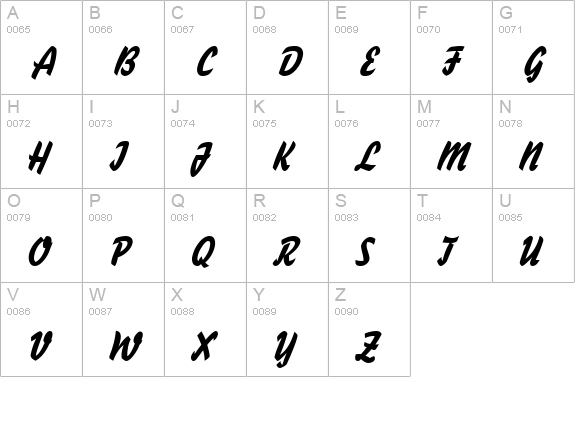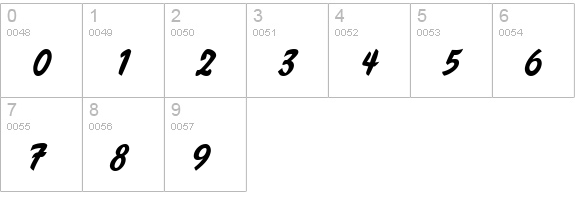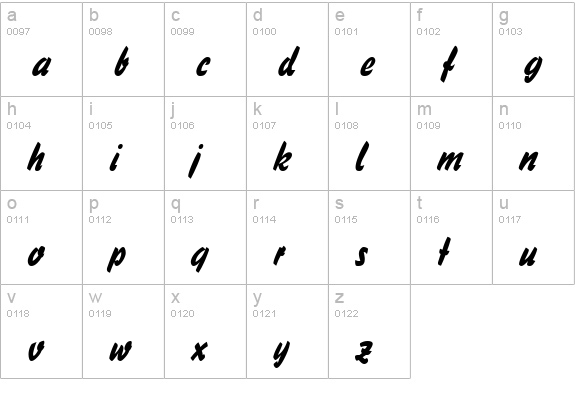
Handybrush Italic Font Details
Handybrush Italic is a distinctive, italic variant in the Handybrush typeface family \xE2\x80\x94 well suited to design and typography projects.
Handybrush Italic font is a vibrant and dynamic typeface that exudes a sense of creativity and spontaneity. Its unique brush strokes and slanted design give it a playful and expressive character, perfect for adding a touch of energy to any design project. With its stylish and fluid letterforms, Handybrush Italic font is an excellent choice for branding, logo design, and display typography. Whether used in headlines, titles, or promotional materials, this font will instantly grab attention and make a lasting impression. One of the best features of Handybrush Italic font is that it is available for free. You can easily download this font at FontsMarket.com, a reliable source for high-quality fonts. By offering this font for free, the creators of Handybrush Italic font aim to make it accessible to designers and creatives of all backgrounds, allowing them to explore and experiment with this exciting typeface without any cost barriers. Whether you are a professional designer or a hobbyist, Handybrush Italic font will bring a fresh and contemporary feel to your designs. Its versatile nature allows it to be used in a variety of projects, from digital to print, and it pairs well with both serif and sans-serif fonts, adding a touch of personality and uniqueness to any composition. Don't miss out on the opportunity to download Handybrush Italic font for free at FontsMarket.com. Start incorporating this bold and expressive typeface into your projects today and see how it elevates your designs to new heights.